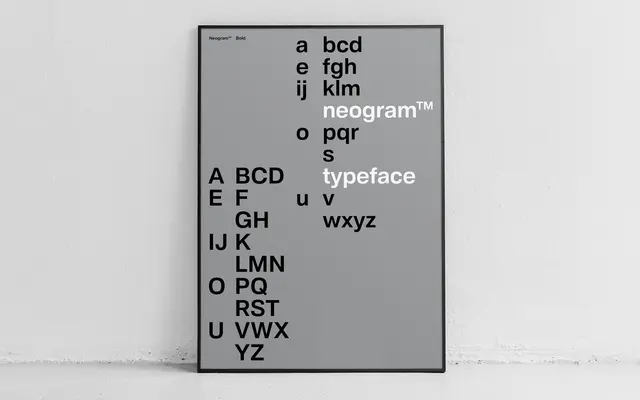
Neogram
The Northern Block · 2012
A Swiss-rooted neo-grotesque expanded in 2024 to 90 fonts across five widths, from Condensed to Expanded.
Originally released in 2012 and referencing Robert Büchler's 1960 Typographie, Neogram has grown into a large working family with a 2024 update introducing SemiCondensed and Wide alongside the existing Normal, Condensed and Expanded widths. Weight distribution has shifted from a mathematical approach to a hand-eye method, intended to produce more visually even results across the full range. OpenType features include circle and squared numbers, directional arrows, tabular figures, fractions, ligatures and case-sensitive forms, with coverage across Western, Southern and Central European languages.
Explicitly described as a neo-grotesque rooted in Swiss design principles, with an original design reference to Robert Büchler's Typographie (1960), placing it firmly in the Swiss modernist grotesque tradition.